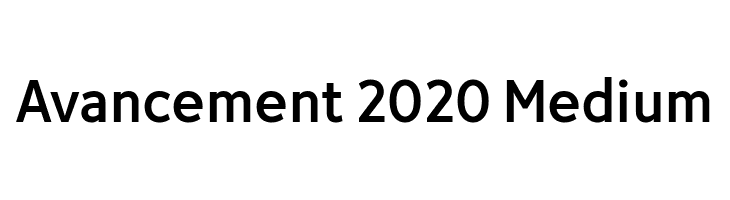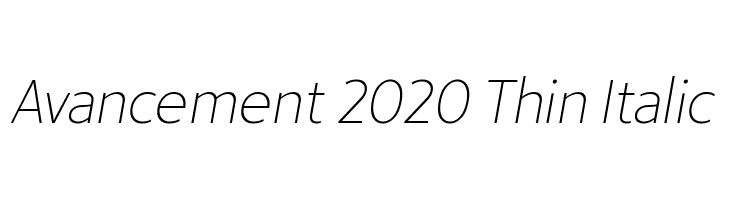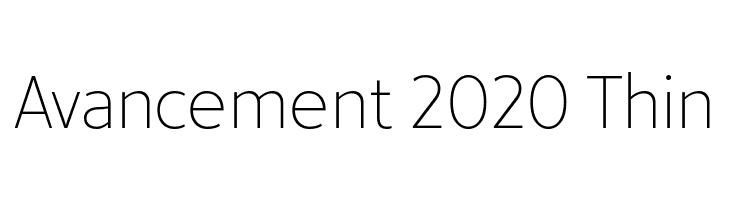
A sleek, modern italic font with rounded characters and consistent stroke widths.
A modern, geometric font with rounded edges and uniform stroke width.